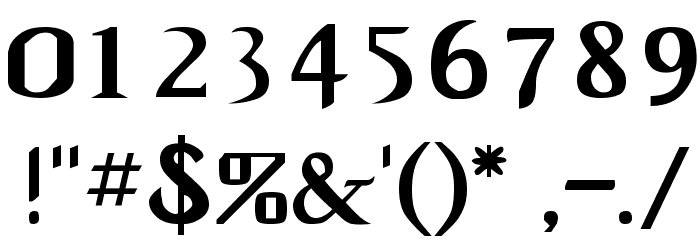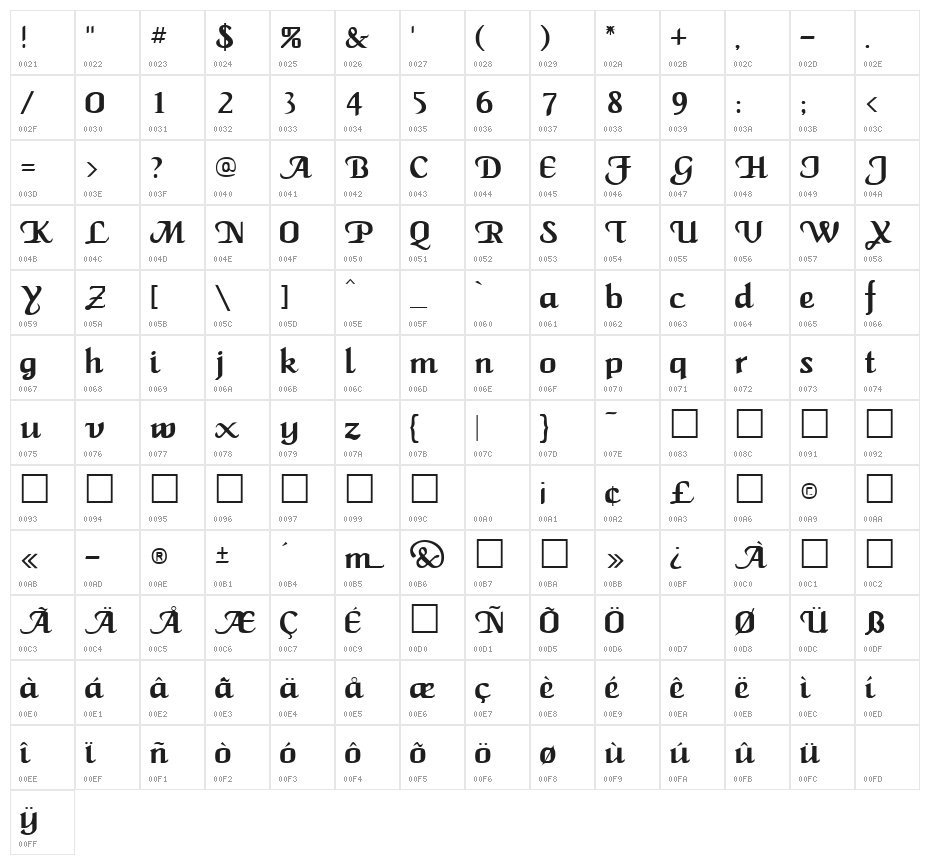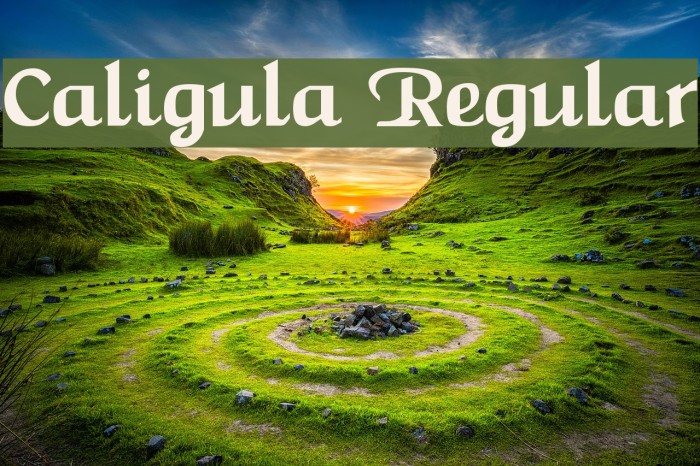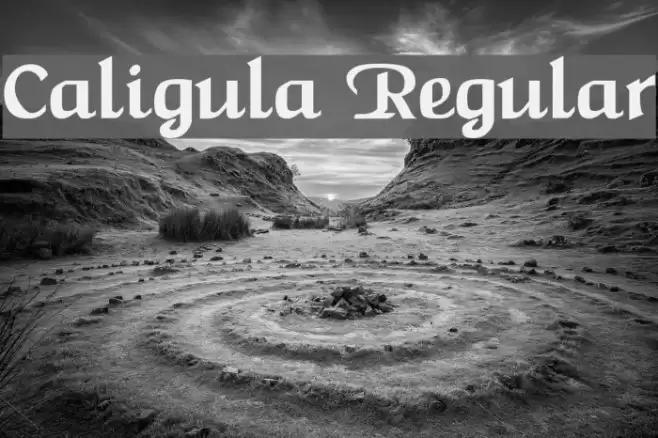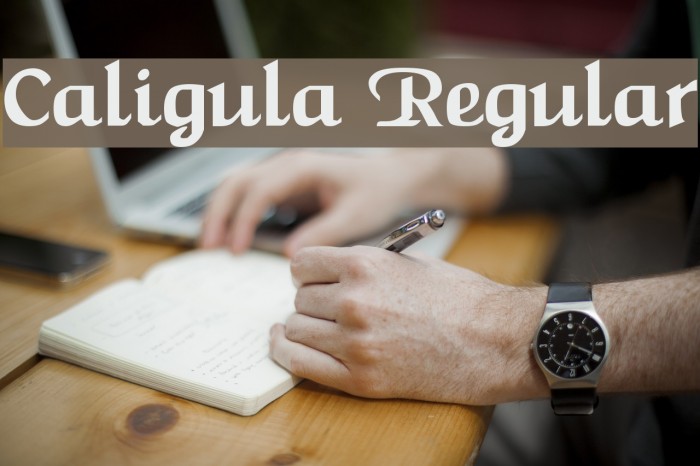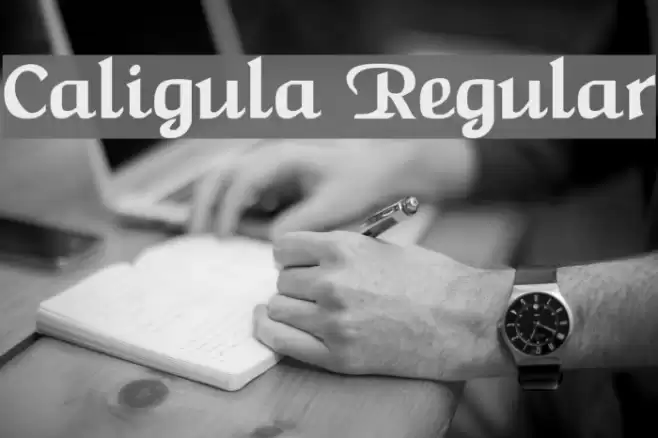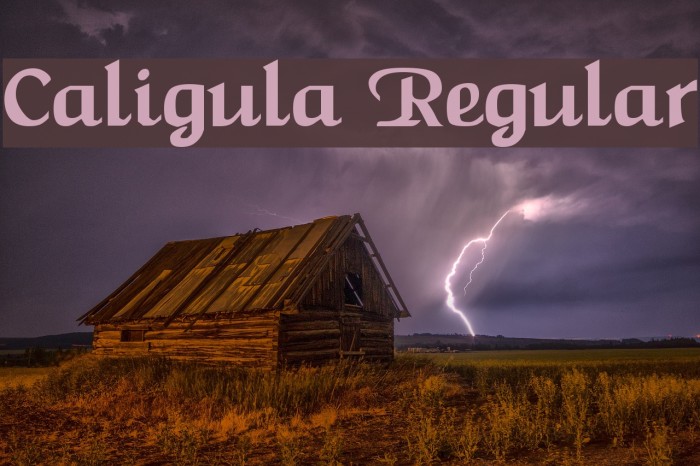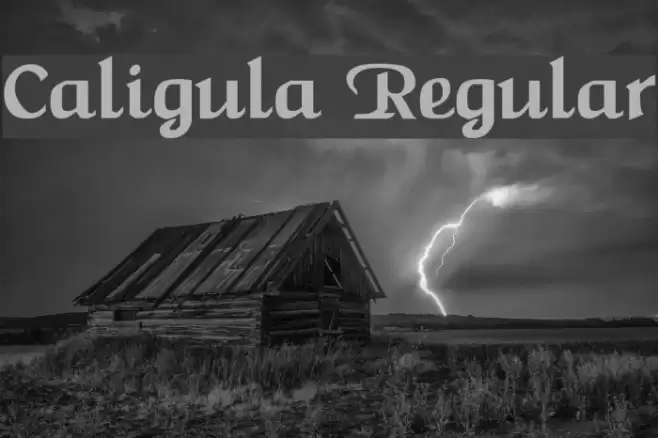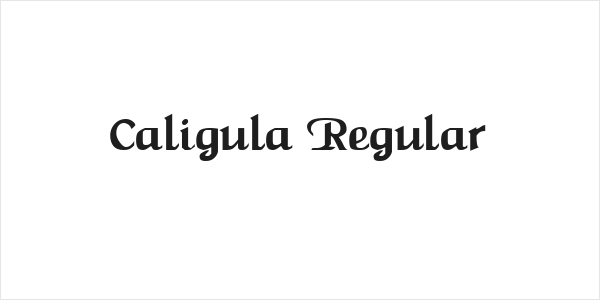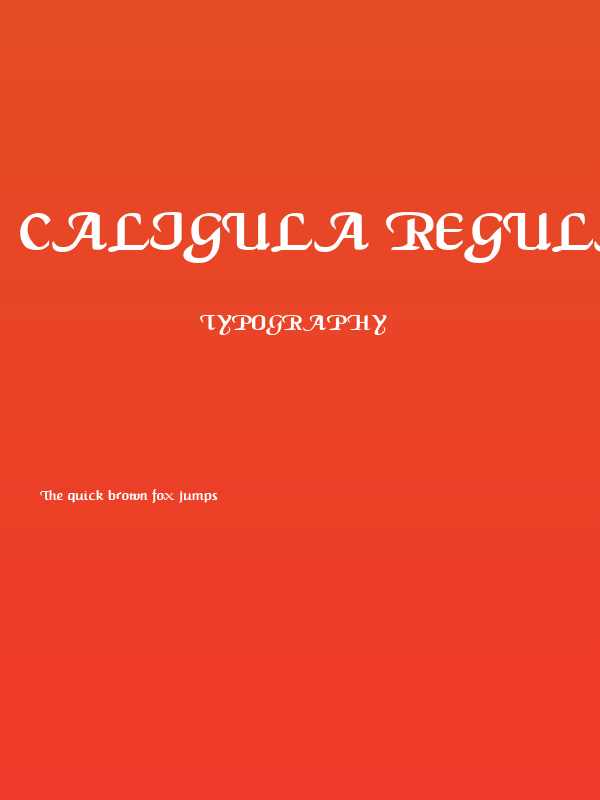
Caligula Regular Font
Caligula Regular Description
This font features a bold and dramatic style with a strong blackletter influence. The uppercase letters are characterized by sharp, angular lines and pronounced serifs, giving them a medieval, gothic appearance. The lowercase letters maintain this theme with a slightly more rounded form, providing a balanced contrast to the uppercase. The numerals are distinct and maintain the same boldness, ensuring readability. Special characters are designed to complement the overall aesthetic, with unique flourishes that enhance the font's decorative nature. This font is ideal for projects that require a historical or dramatic flair.
| Use Case | Headlines, Logos, Decorative text |
| Proposed Projects | Suitable for historical documents, theatrical posters, or branding that requires a gothic touch. |